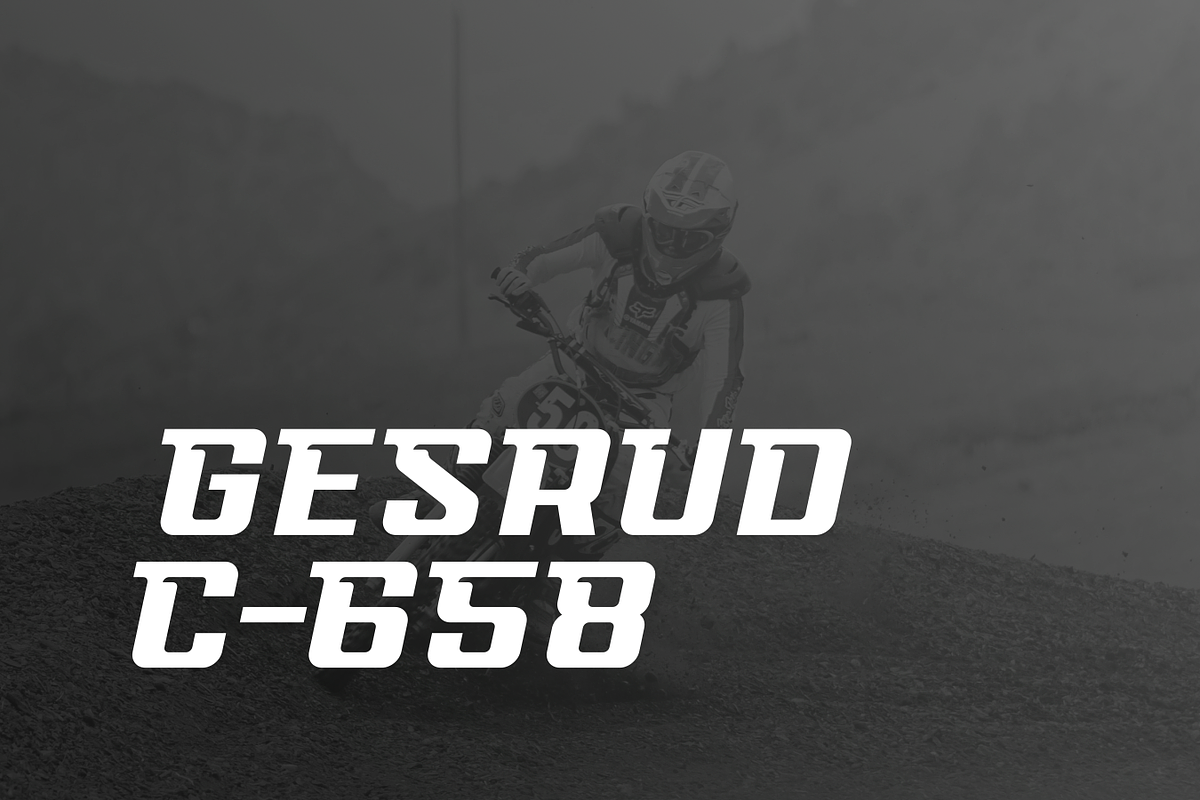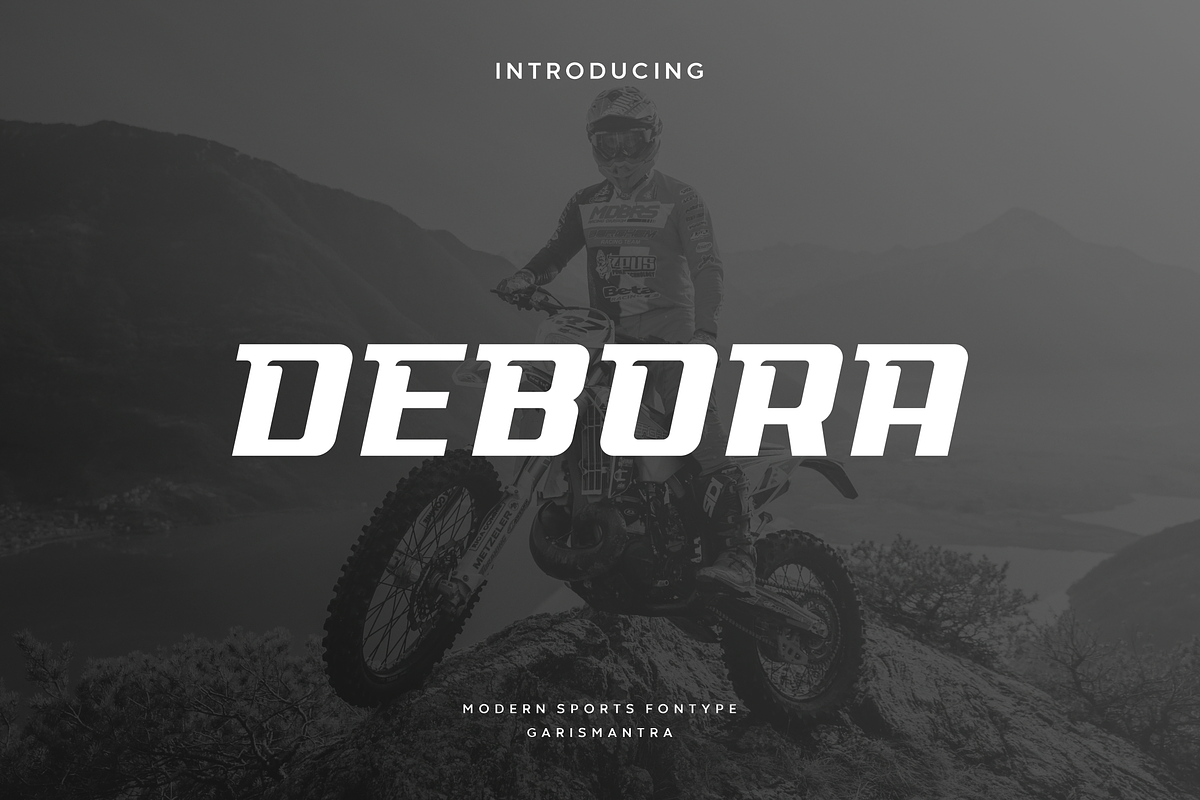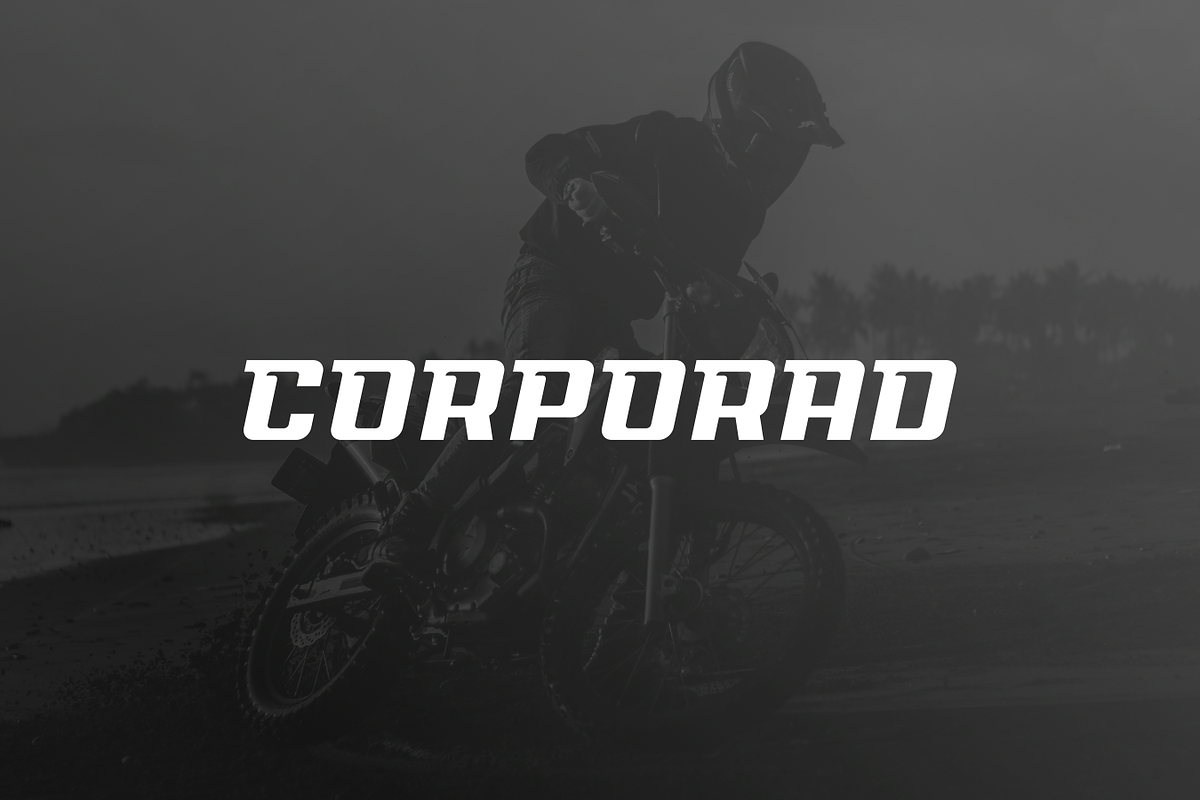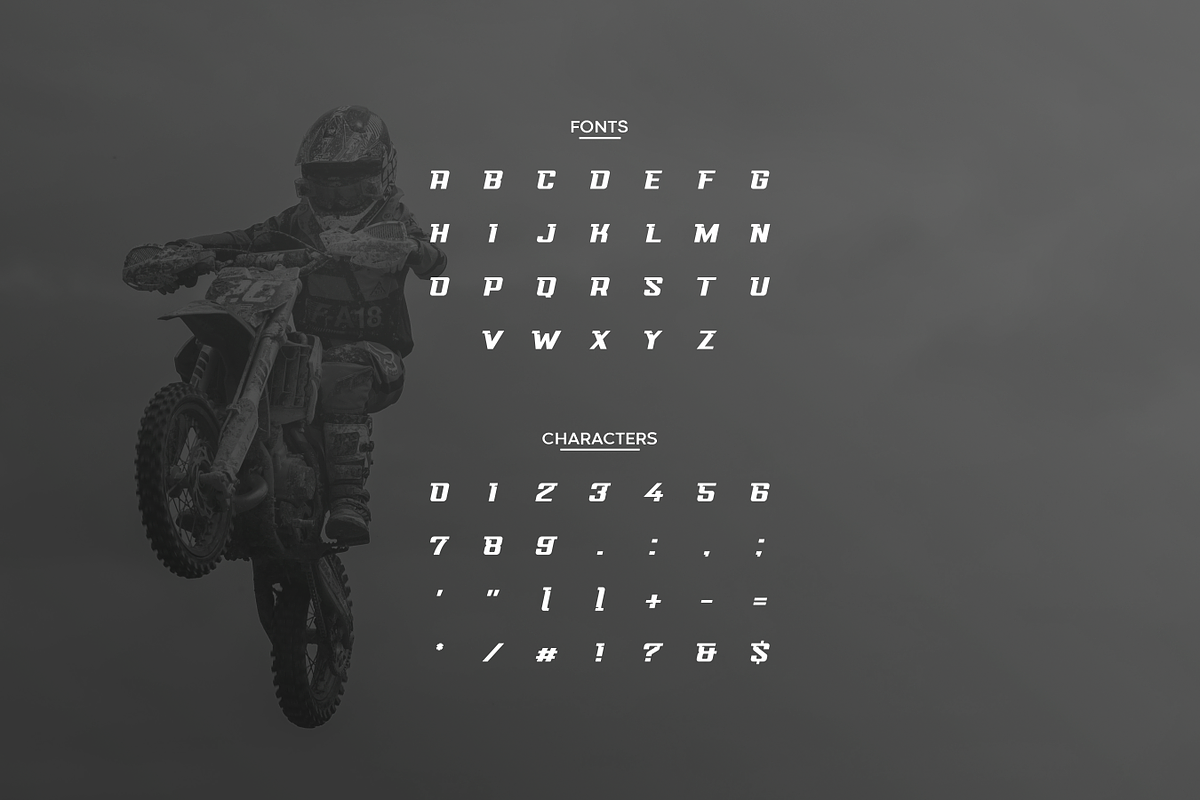
Debora
Debora is an awesome sports font, with a wide italic font style, modern cutouts on every corner giving it a dynamic slant. Ideal for fast car racing sports titles, running matches, cycling, automotive game logos and other modern dynamic monograms or texts. Debora compares favorably with other sport fonts, giving more a power and speed effect. Designed as a fast and dynamic font, but with a slightly different font design, take a look and grab it right away.